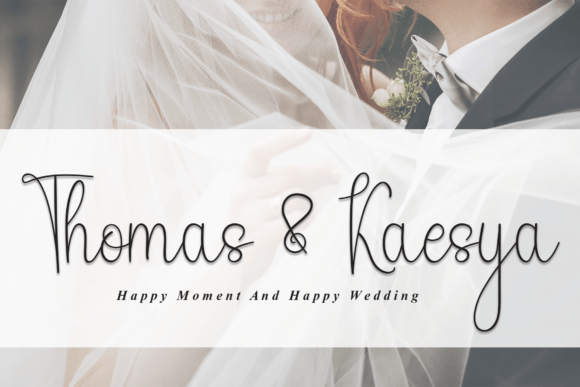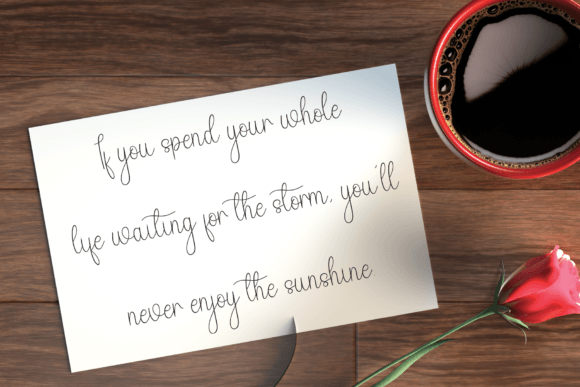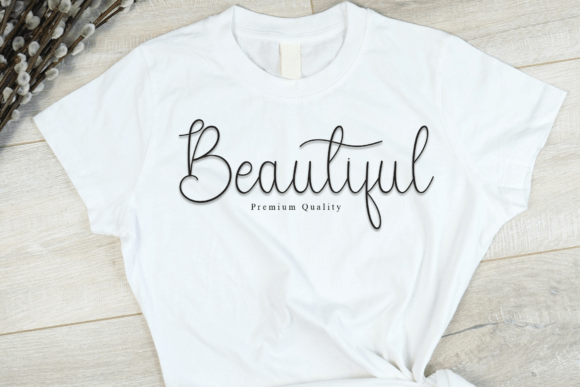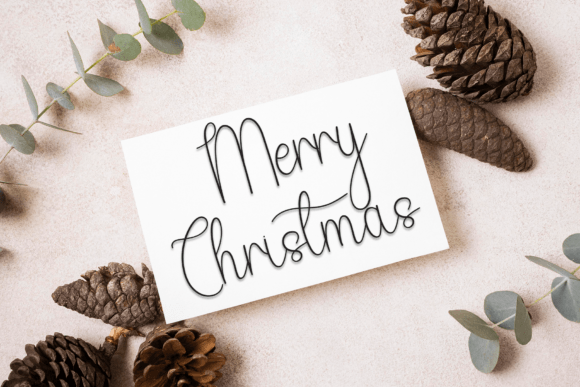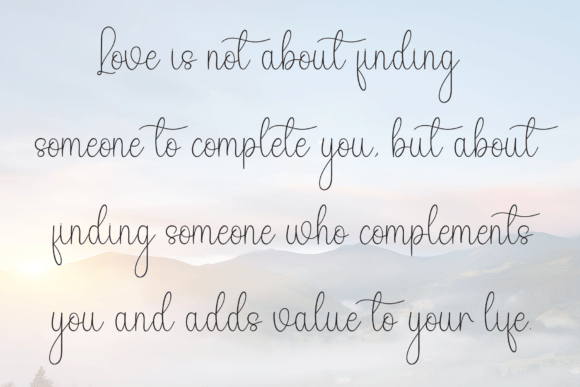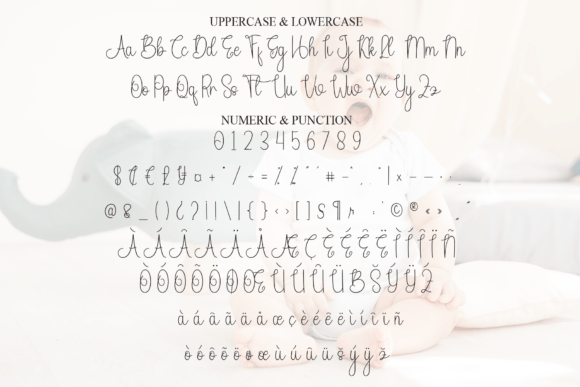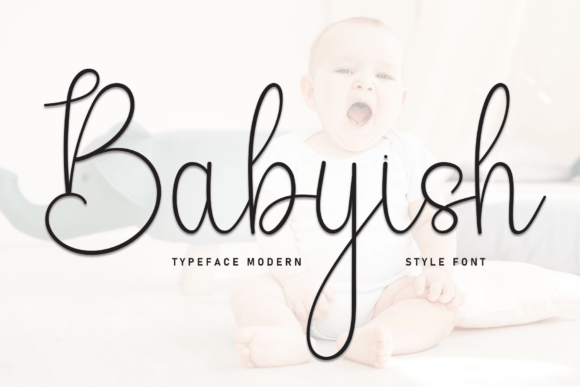
Babyish Font: The Perfect Choice for Sweet and Playful Designs
Are you looking for a font that can add a touch of sweetness and playfulness to your designs? Look no further than the Babyish font. This cute, thin script font is perfect for designers and crafters who want to create fun and lighthearted designs that capture the imagination of their audience.
What is Babyish Font?
Babyish is a beautiful, hand-written font that features soft, playful letters with a flowing style. The font’s thin lines and delicate curves give it a friendly and welcoming look that’s perfect for a wide range of design projects. Whether you’re creating invitations, greeting cards, or social media graphics, Babyish is the perfect choice for adding a touch of whimsy and charm.
Key Features of Babyish Font
- Cute and Playful: Babyish font is designed to be fun and playful, making it perfect for designs that need a sweet and lighthearted feel.
- Thin Script Font: The font features thin lines and delicate curves, giving it a elegant and refined look.
- Soft and Friendly: The flowing style of the font gives it a soft and friendly look that’s perfect for creating welcoming designs.
- Versatile: Babyish font can be used for a wide range of design projects, from invitations and greeting cards to social media graphics and more.
Uses of Babyish Font
Babyish font is perfect for a wide range of design projects, including:
- Invitations: Use Babyish font to create sweet and playful invitations for baby showers, birthday parties, and other special occasions.
- Greeting Cards: Add a touch of whimsy and charm to your greeting cards with Babyish font.
- Social Media Graphics: Use Babyish font to create fun and engaging social media graphics that capture the imagination of your audience.
- Crafting Projects: Babyish font is perfect for crafters who want to add a personal touch to their projects, such as handmade cards, scrapbook pages, and more.
Tips for Using Babyish Font
Here are some tips for using Babyish font in your designs:
- Pair with Bold Fonts: Pair Babyish font with bold fonts to create a striking contrast and add visual interest to your designs.
- Use Pastel Colors: Use pastel colors to create a soft and playful look that complements the Babyish font.
- Add Whimsical Elements: Add whimsical elements, such as illustrations or graphics, to create a fun and playful design.
- Experiment with Sizes: Experiment with different font sizes to create a visually appealing design that captures the imagination of your audience.
In conclusion, Babyish font is a beautiful and versatile font that’s perfect for designers and crafters who want to create sweet and playful designs. With its thin lines, delicate curves, and flowing style, Babyish font is sure to add a touch of whimsy and charm to any design project. Whether you’re creating invitations, greeting cards, or social media graphics, Babyish font is the perfect choice for adding a personal touch and capturing the imagination of your audience.
Get Creative with Babyish Font